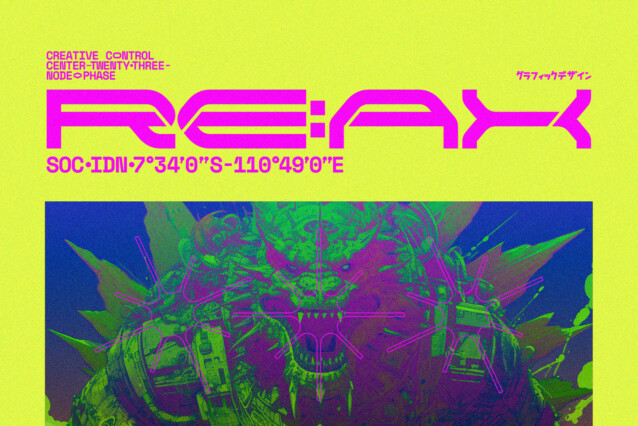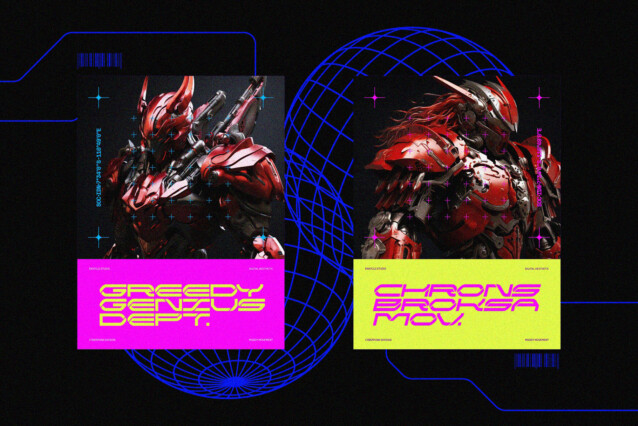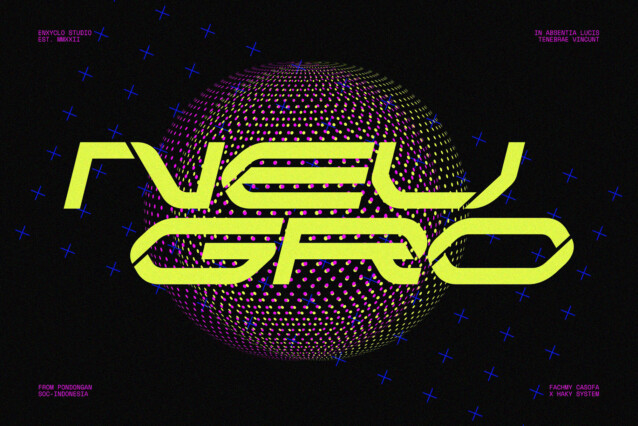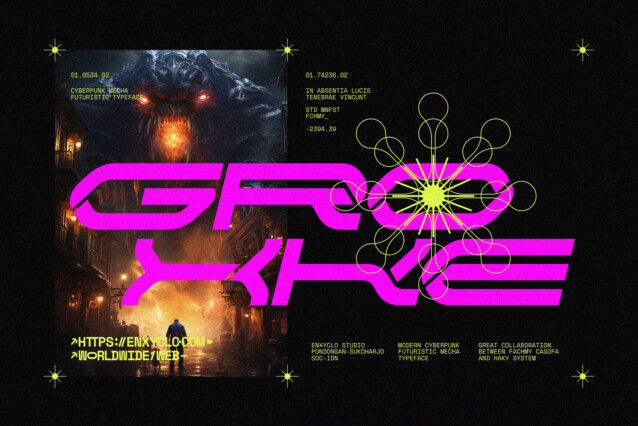
NCL Kemgor Font
NCL Kemgor Font is a cyberpunk futuristic techno mecha font that takes your creativity to the next level. Its futuristic aesthetics bring a whole new dimension to your designs, making them stand out. Whether you’re working on a website, poster, logo, or any other project, this font adds that extra touch of innovation and sophistication.